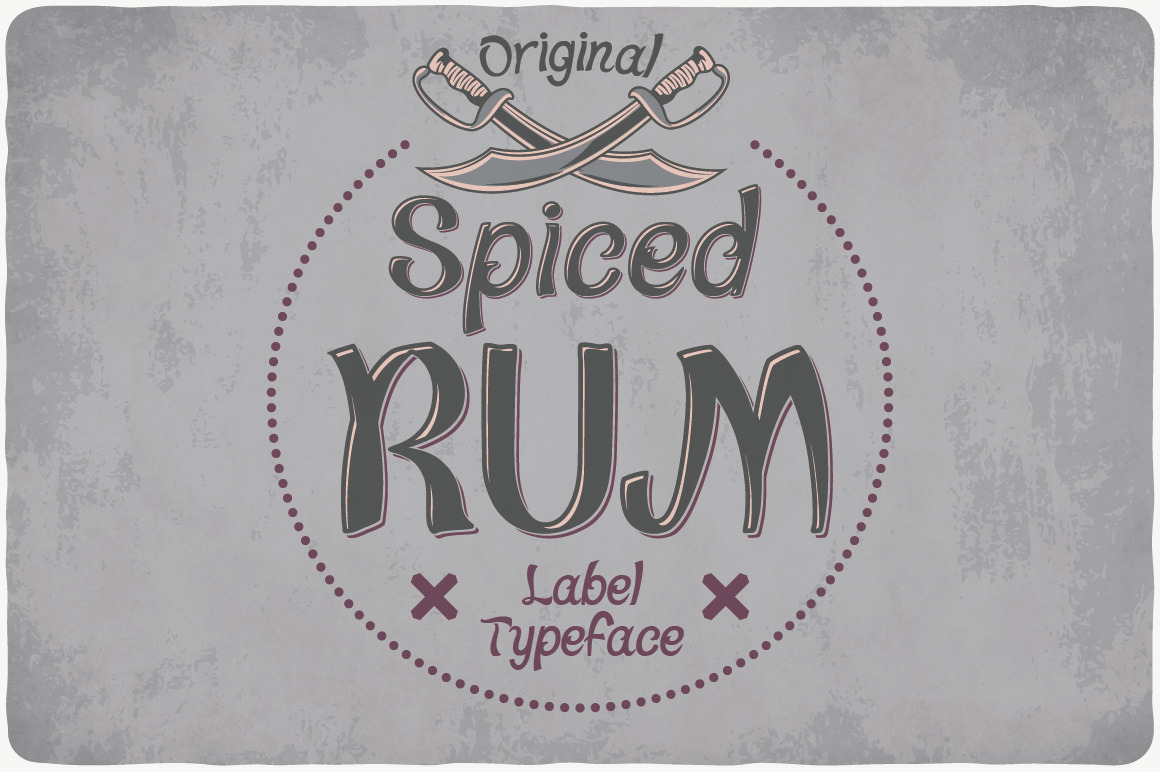
Spiced Rum Typeface
Hello! Presenting a handwritten style label font. It also includes a bonus graphics — motorcycle badge and bar (pub) motivational poster :)